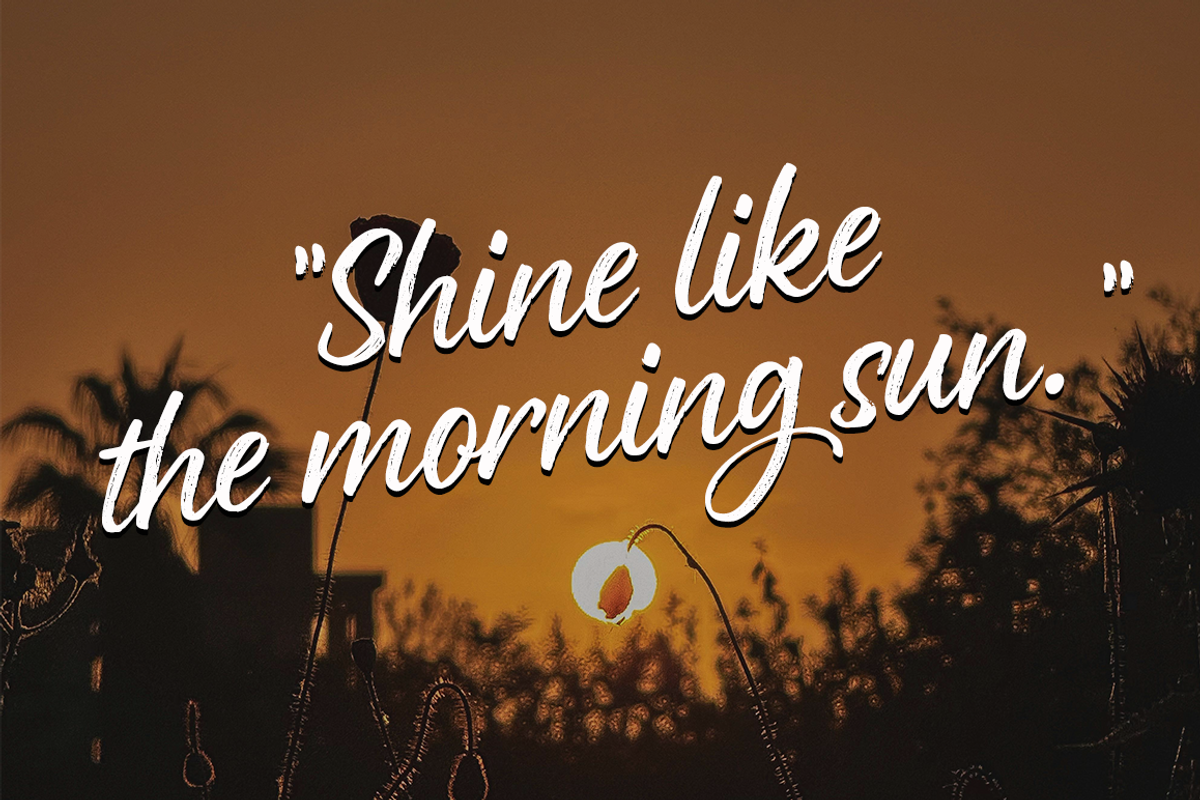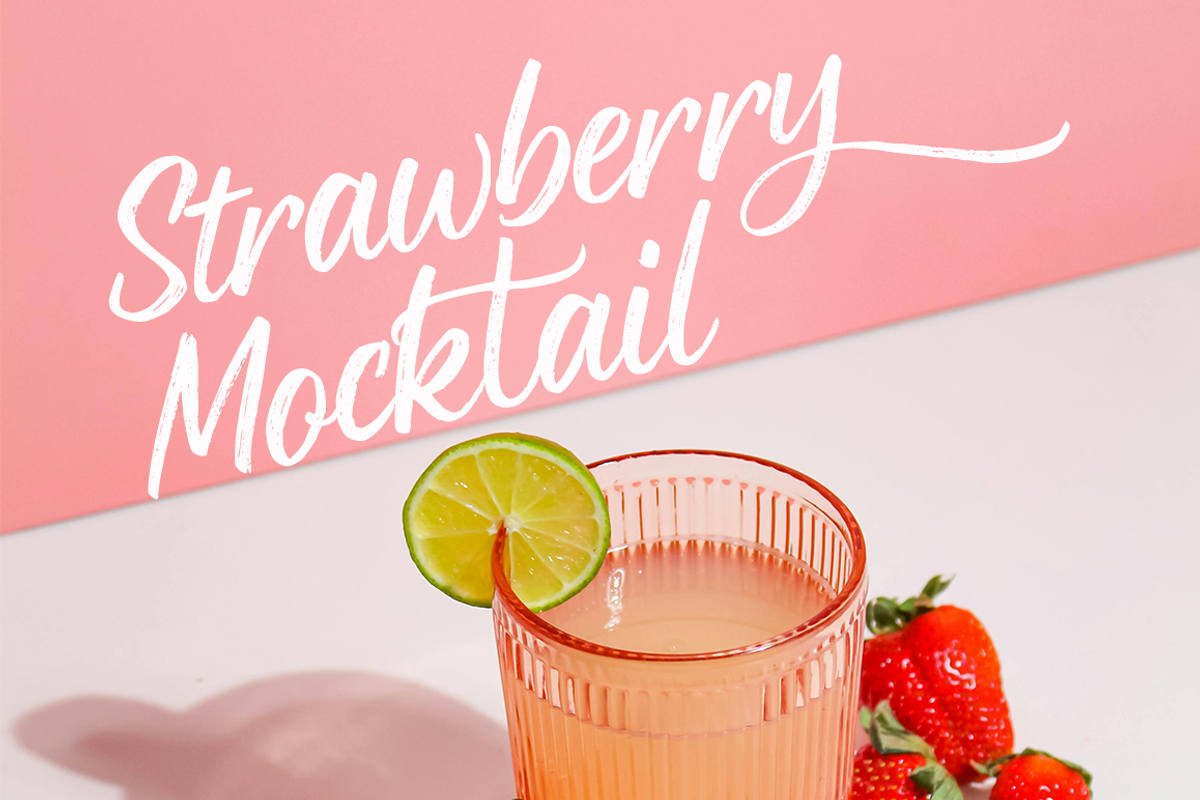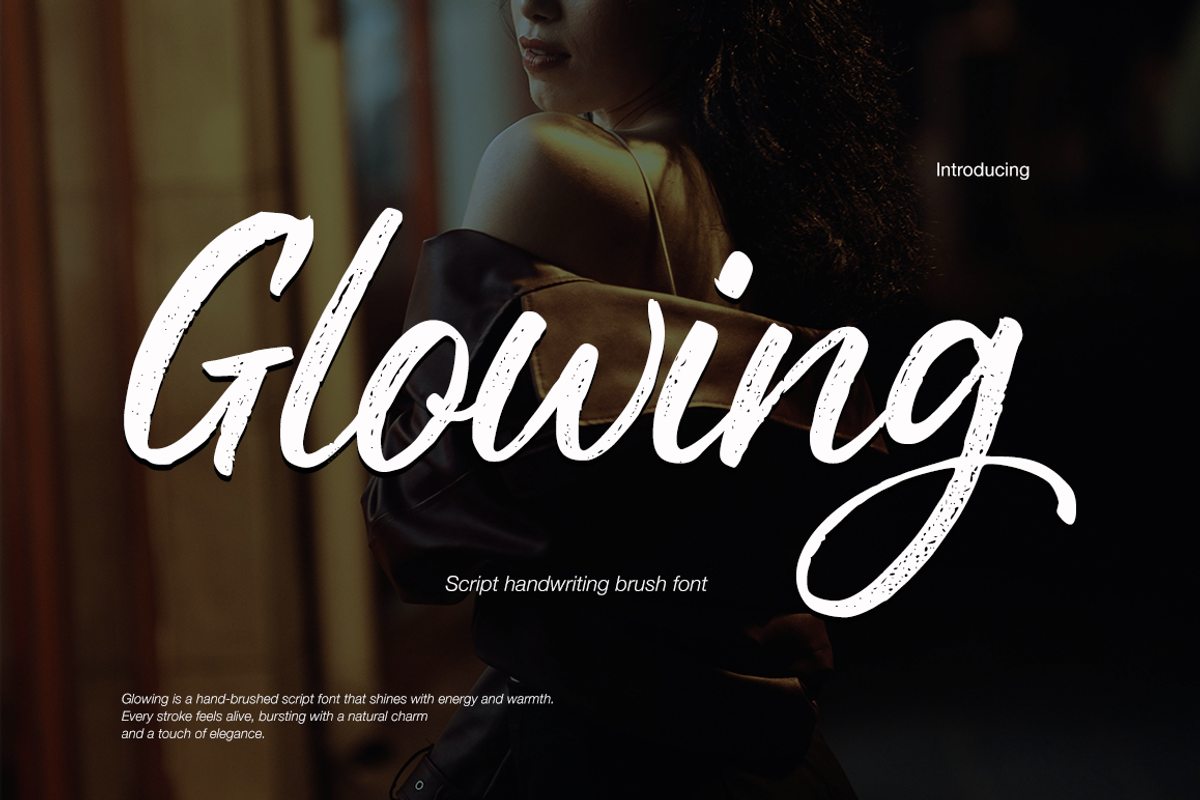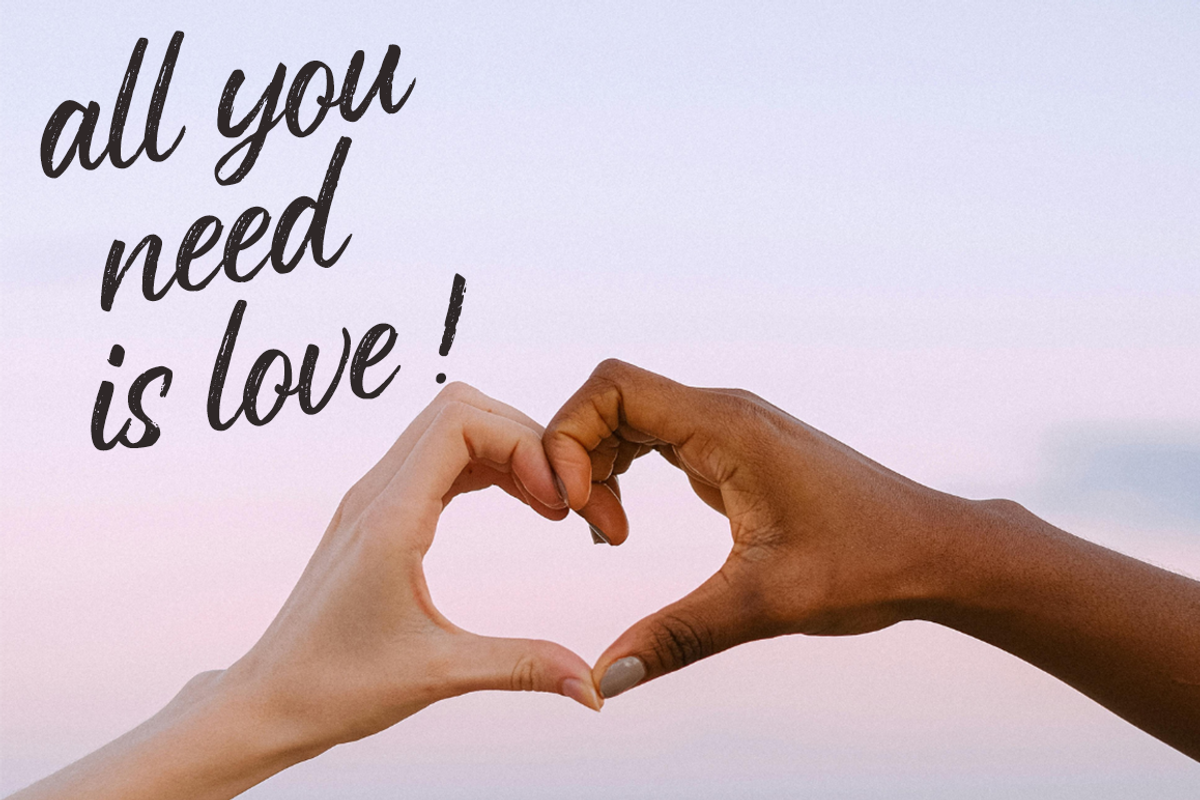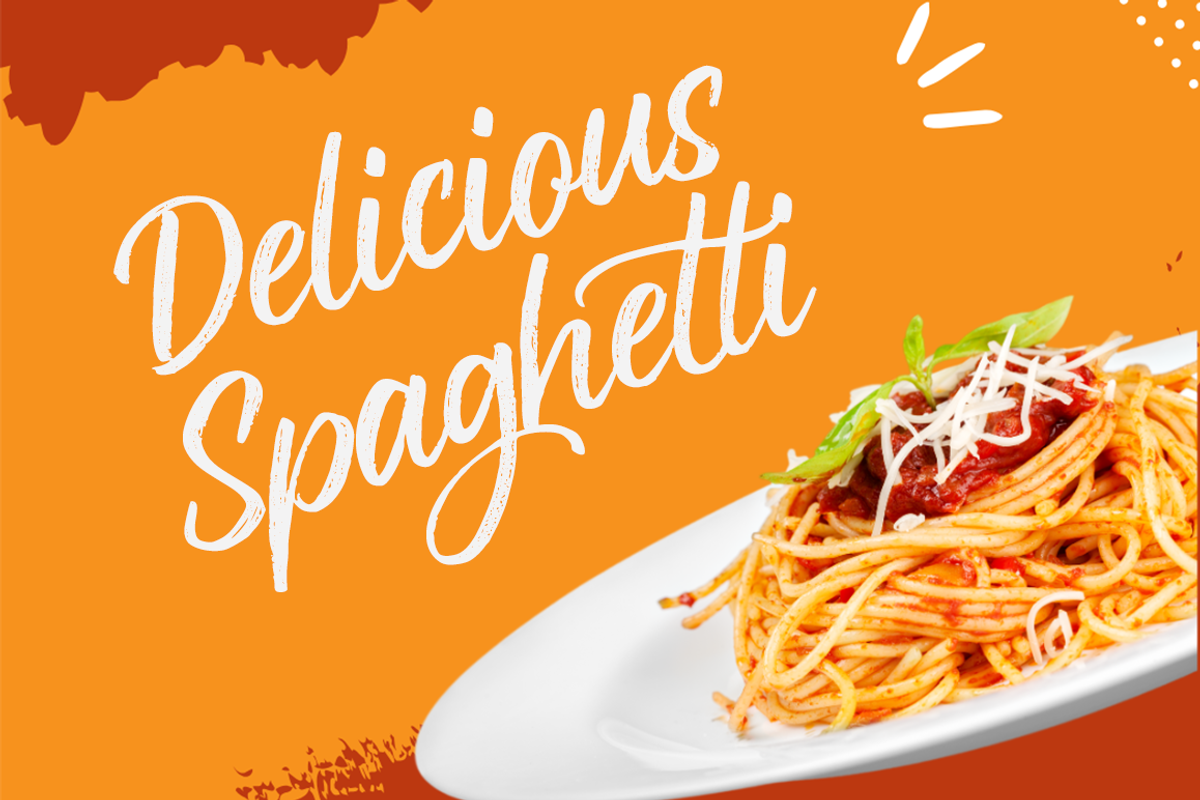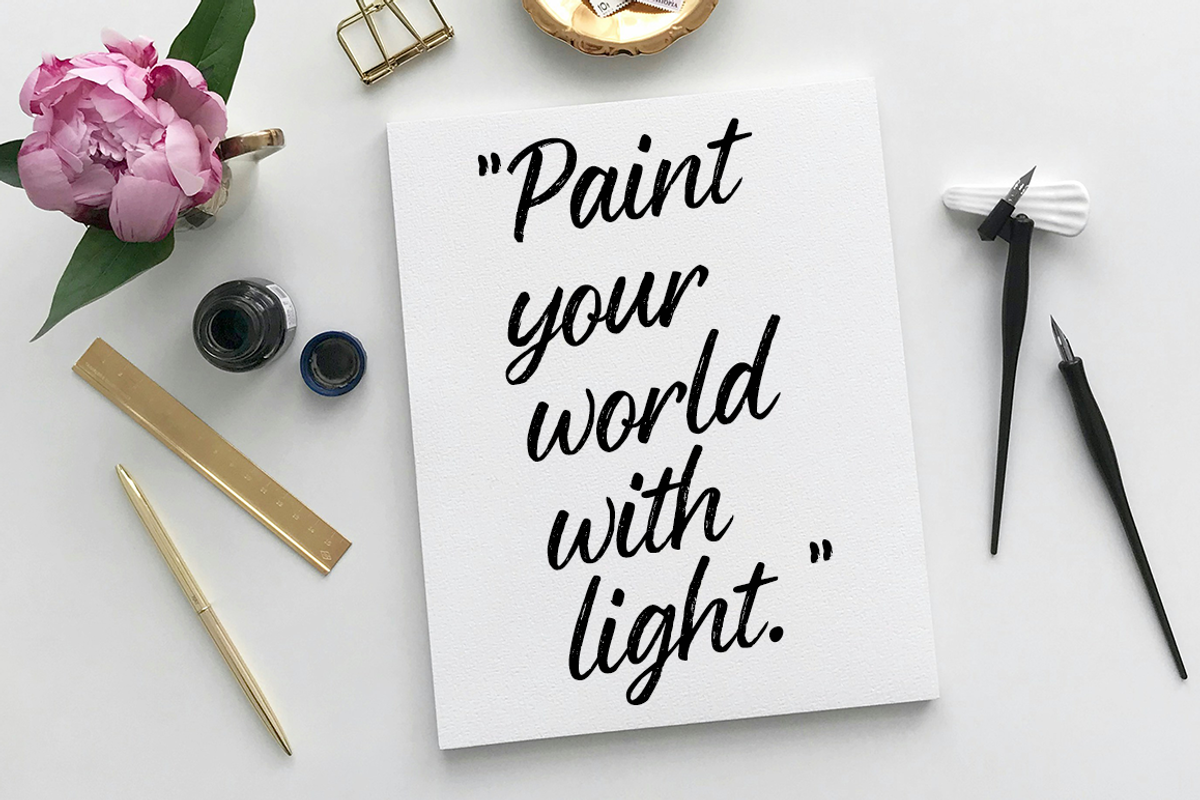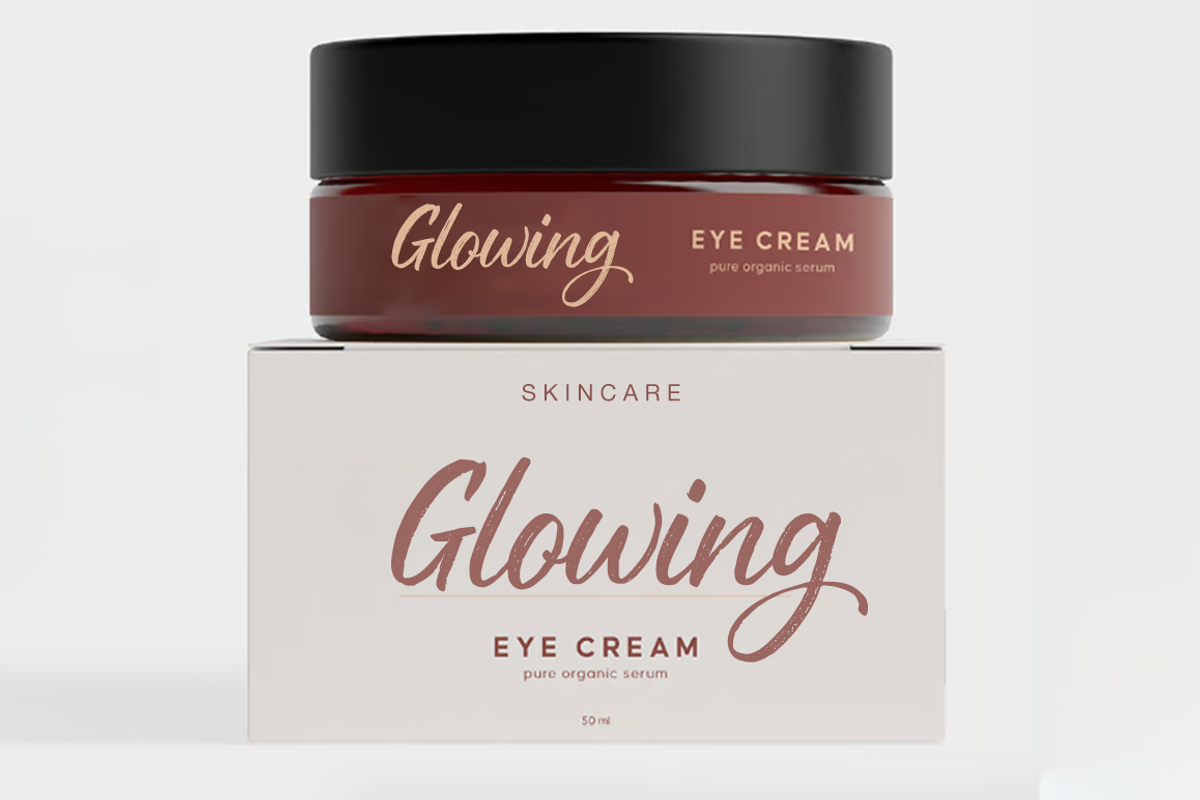
Glowing
Glowing is a hand-brushed script font that shines with energy and warmth. Every stroke feels alive, bursting with a natural charm and a touch of elegance. Designed to light up your creative projects, Glowing is perfect for branding, social media graphics, wedding designs, product packaging, and heartfelt quotes. Let your words sparkle and your designs glow — with the vibrant spirit of Glowing.